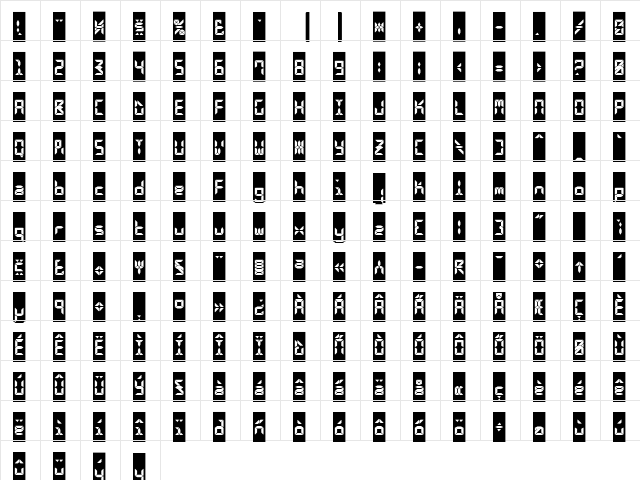
Calculus Regular Font Preview
Calculus Regular
Calculus Regular Font Details
Design Context for Calculus Typeface
Calculus is a composed and adaptable typeface that performs quietly and consistently across a wide range of design contexts.